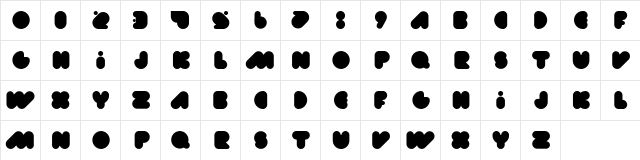
happyloverstown.eu_fatlove Regular
Design Context for happyloverstown.eu_fatlove Typeface
happyloverstown.eu_fatlove is a composed and adaptable typeface that performs quietly and consistently across a wide range of design contexts.